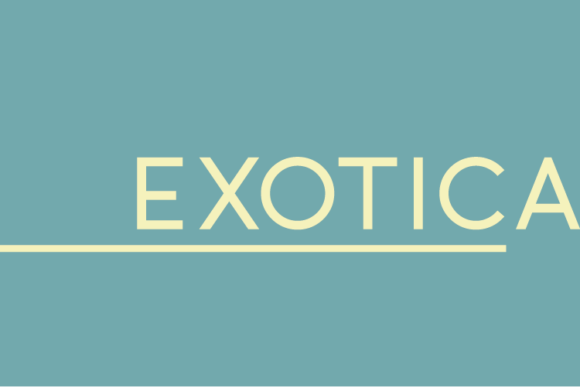
Introducing Exotica, the modern, classy sans serif typeface that will elevate your designs to new heights.
Exotica is the perfect choice for elegant logos that demand attention, beautiful wedding invitations that will be cherished forever, and stylish advertisements that leave a lasting impression.
With a full range of upper characters, numbers, and symbols, Exotica provides the versatility you need to execute any creative vision.
And because it's crafted with the utmost care by renowned font designer, A Christie, you can trust that Exotica is not only visually stunning but also technically flawless.
Don't settle for ordinary fonts. Choose Exotica and watch your designs blossom with sophistication and allure.